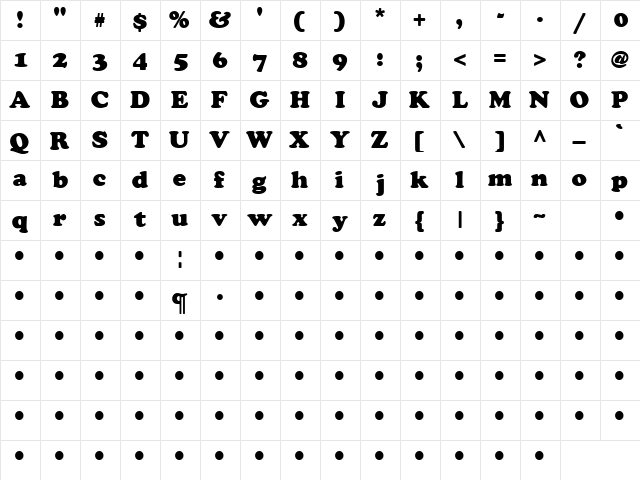
QTKooper Regular
Design Context for QTKooper Typeface
QTKooper offers clean, dependable letterforms without strong stylistic allegiance, making it a practical choice for designers who need flexibility.